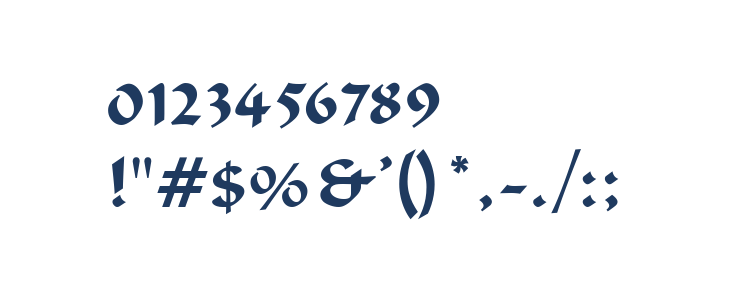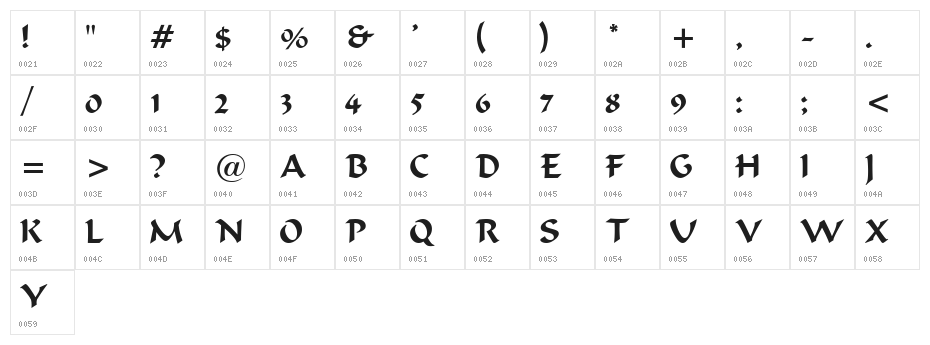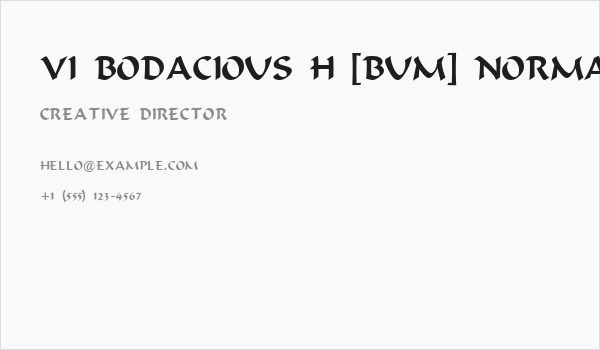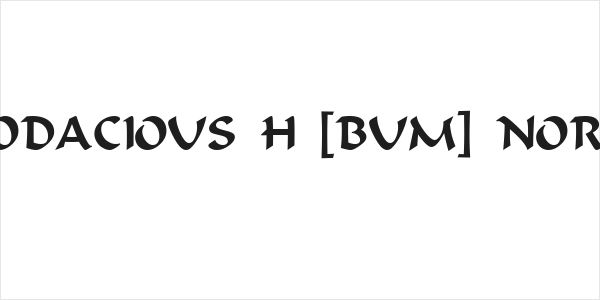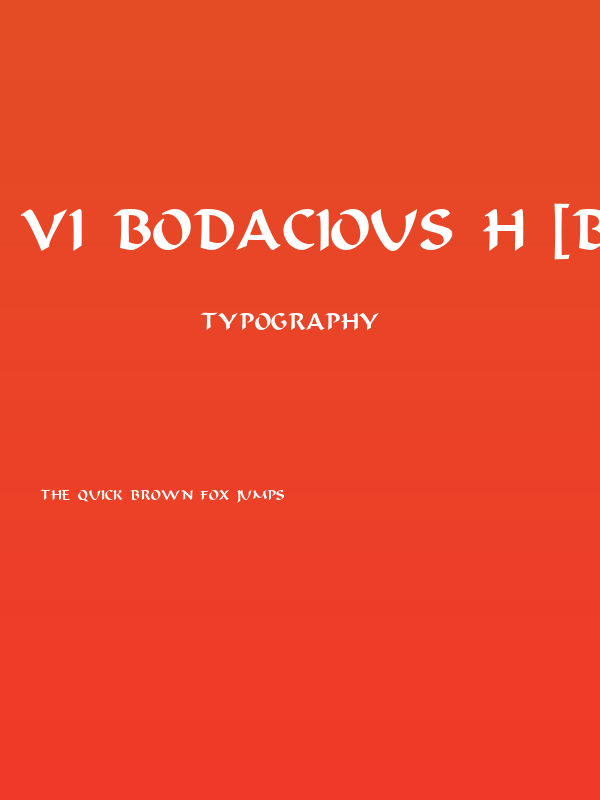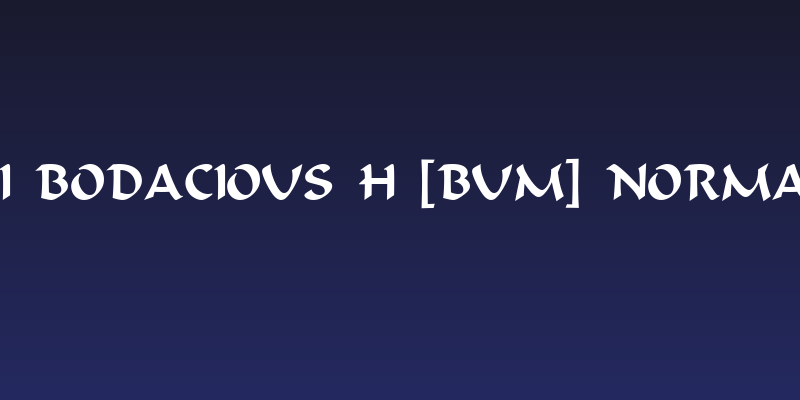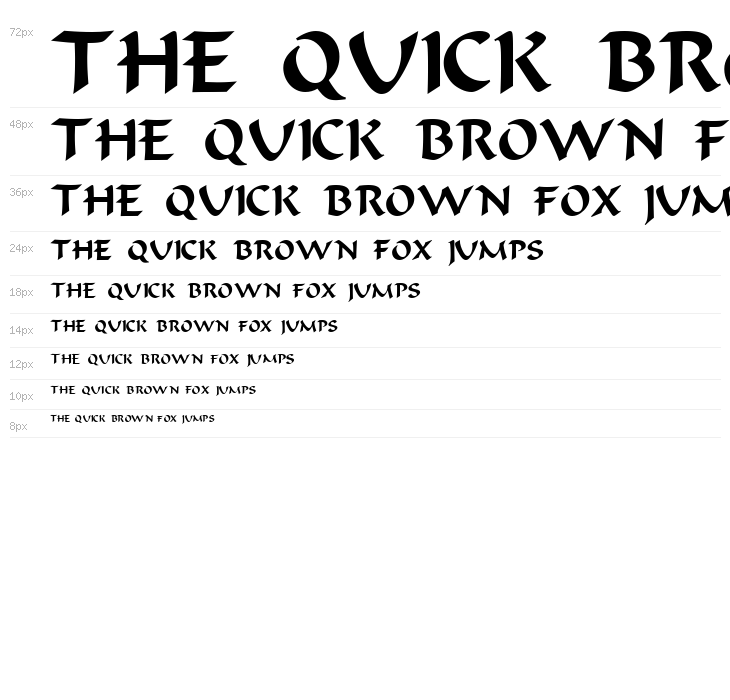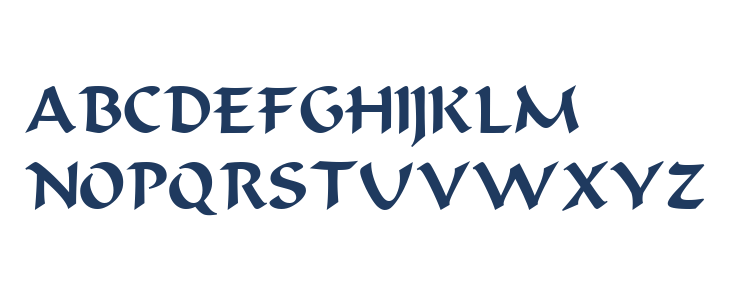
VI Bodacious H [Bum] Normal Font
VI Bodacious H [Bum] Normal Description
This font features a bold and dynamic style with sharp, angular edges and a distinct flair. The characters exhibit a strong presence, making them ideal for attention-grabbing designs. The uppercase letters are particularly striking, with a unique blend of traditional and modern elements. The numbers and special characters maintain the same boldness, ensuring consistency across all text. The overall design is reminiscent of medieval or fantasy themes, adding a dramatic touch to any project.
Proposed ProjectsIdeal for fantasy-themed posters, video game titles, book covers, and branding that requires a bold statement.